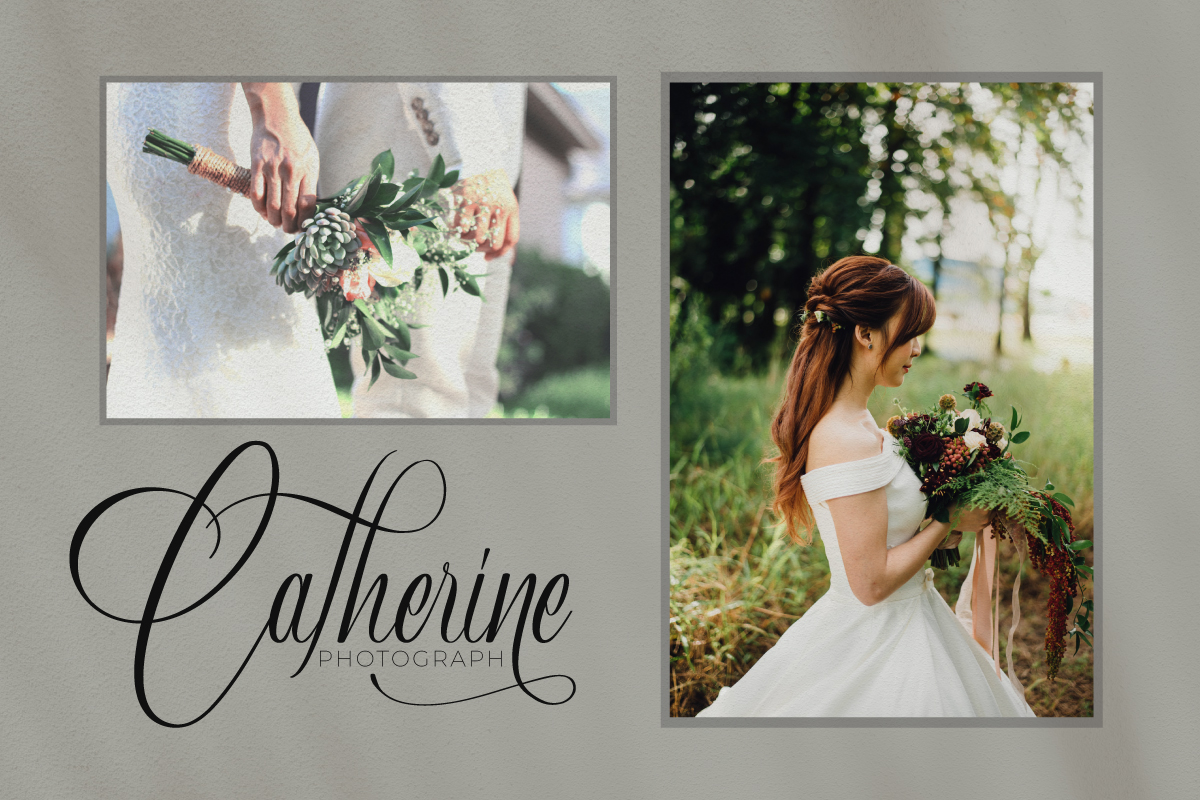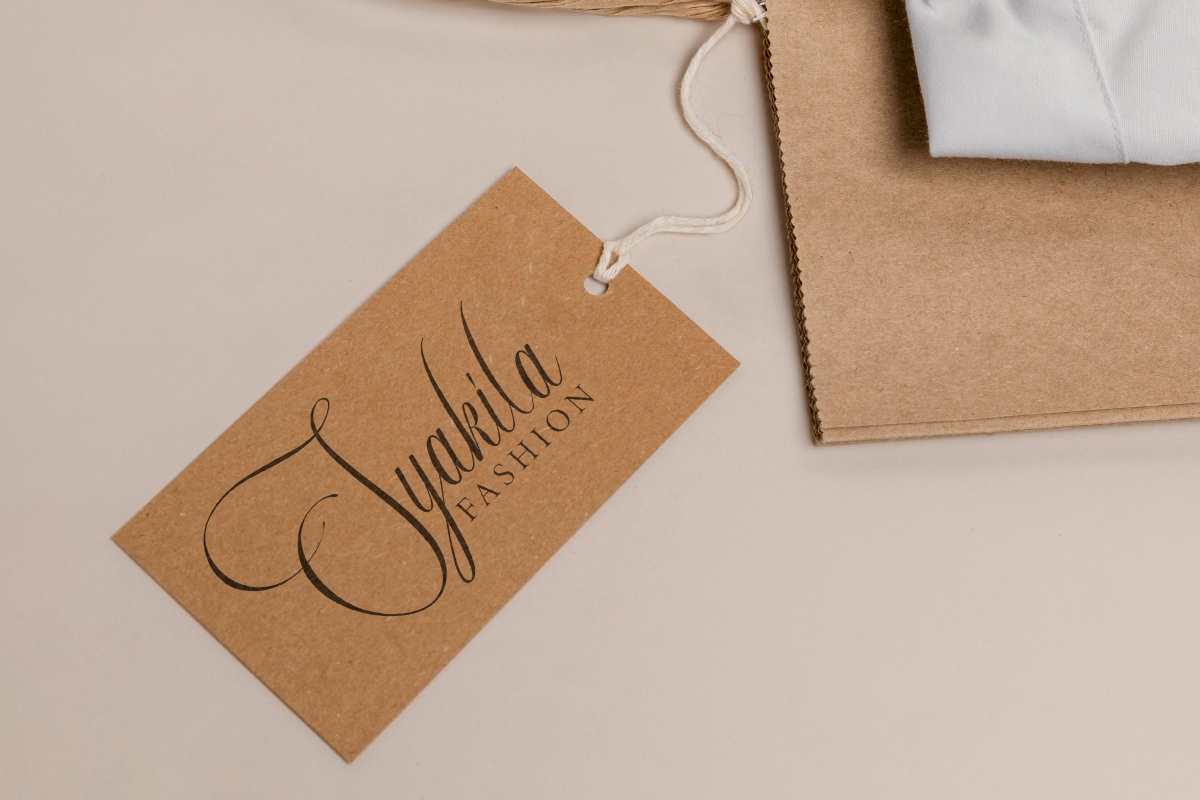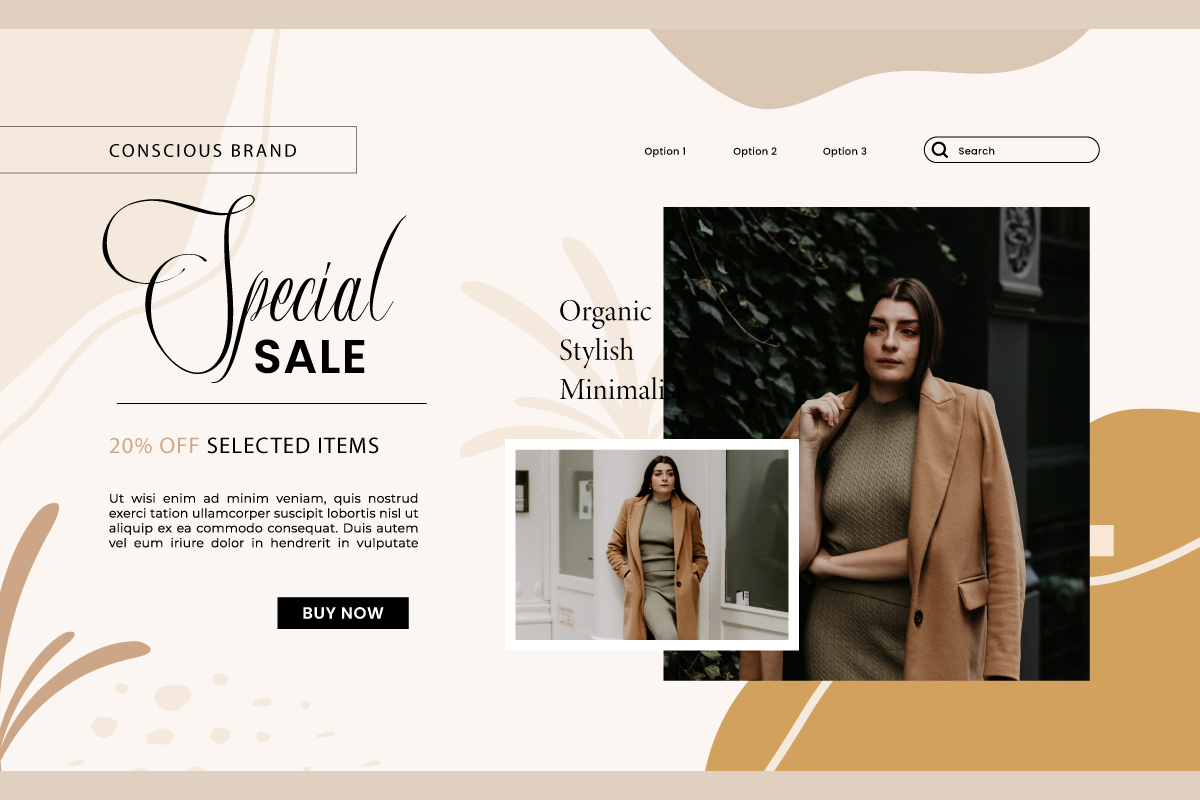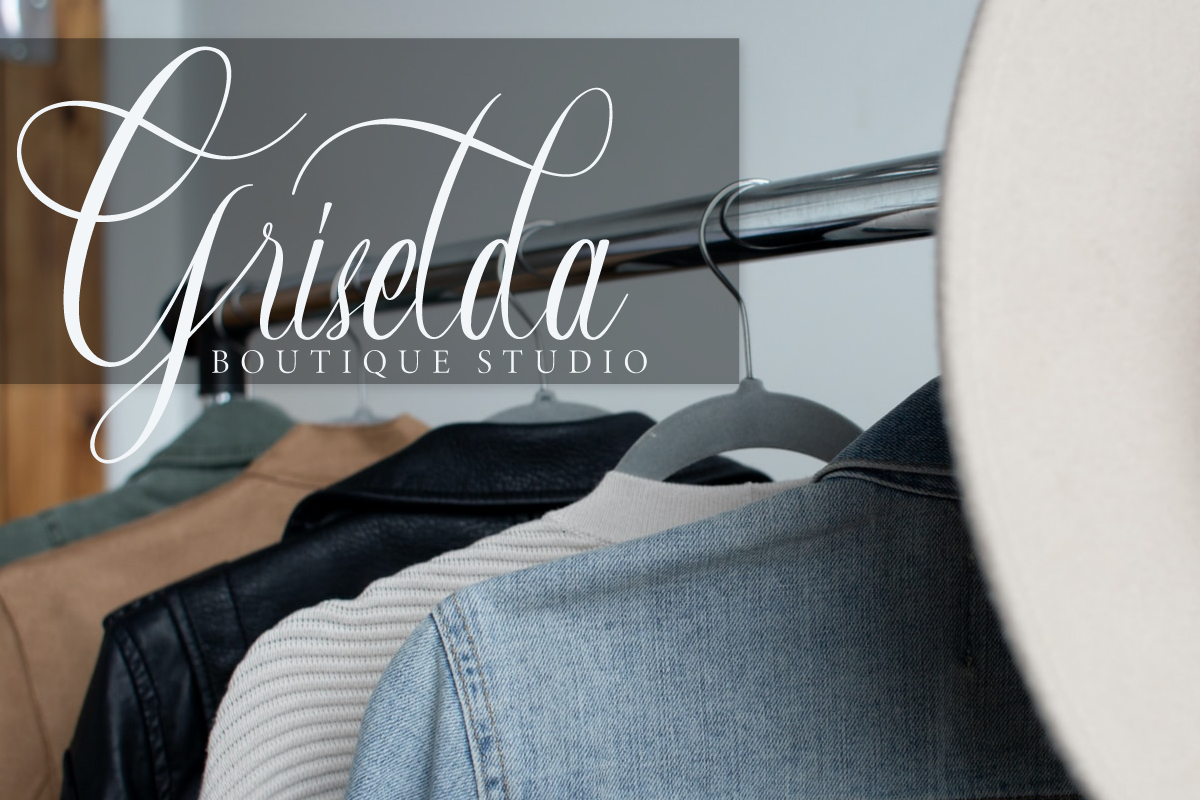
Calianda Font
Calianda Calligraphy Font
It’s an awesome calligraphic font which has luxurious and modern style. This font is crafted carefully in every its single letter so we can make sure it has great looking, inspired by lovely wedding letterings. Carefully designed to work together in harmony and This one should make your designs instantly professional and jaw-dropping!
Calianda Calligraphy Font includes full set of Uppercase and Lowercase Basic Characters, Numerals and Punctuation. Also it contains ligatures to make it flowless characters to perfectly make awesome look that add more aesthetic fonts to perfect your extraordinary project. Calianda Font will be great for wedding, engagement, holiday, writer, musician, singer, artist, composer, architect, etc